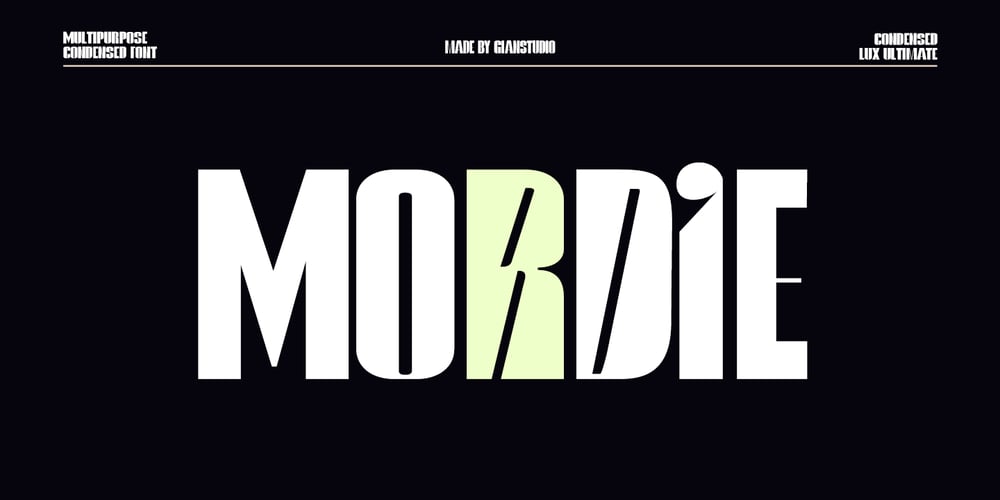
Mordie
Mordie font
Mordie Font Family was designed by Yusliana M Isa and published by Gian Studio. Mordie contains 1 styles and family package options. Mordie vintage display font is suitable for logos, branding, greetings, themes, screen printing, social media and wedding invitation designs. It is also a great typeface for titles because of its unique design and attractive appearance.If you have any questions please feel free to contact me!Thank You,